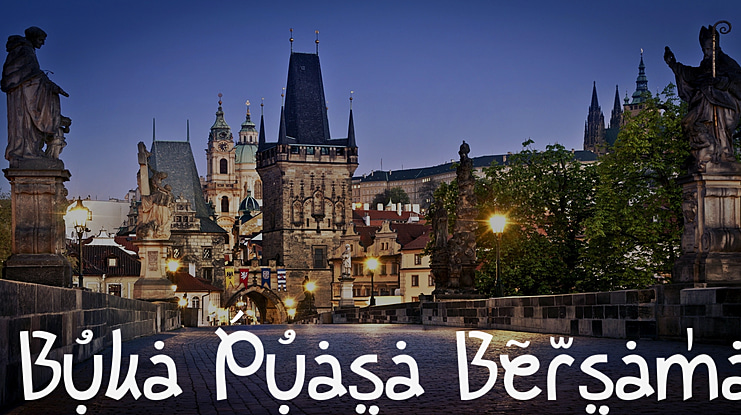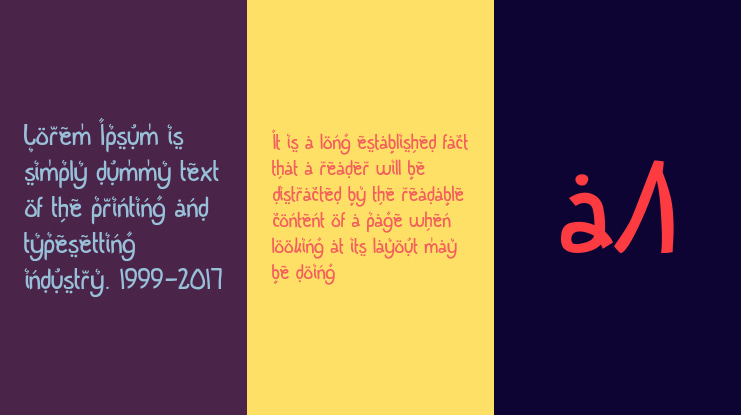
Buka Puasa Bersama Font
Celebrate Ramadhan Month! Happy Fasting!
I created this one for the coming of Ramadhan month, the best month in a year.
This font copy the Arabic letters style into Latin style. Enjoy. Please be free to do commercial (please contact me first)